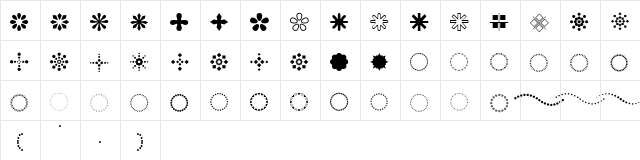
fb_simple Regular
Design Context for fb_simple Typeface
fb_simple takes a measured approach to typography — its balanced proportions and neutral character make it a reliable workhorse for both digital and print work.